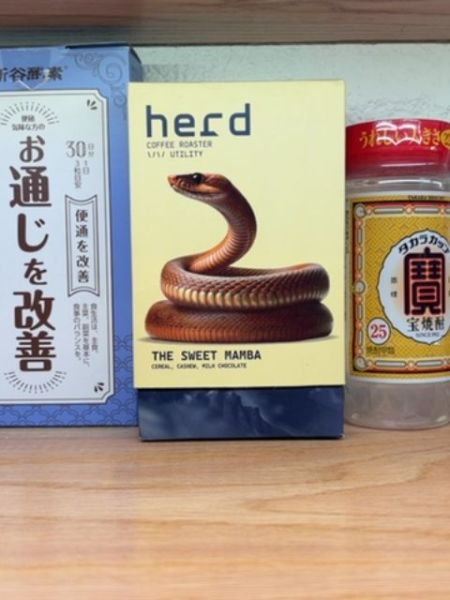
Herd Coffee Roaster
The product is a type of coffee roasted by Herd, known for its distinctive flavor profile involving cereal, ganja, and milk chocolate notes.
Country of Origin
Japan
Typography
The typography on the packaging uses a clean, sans-serif font that is modern and easy to read. The lowercase letters give a casual yet sophisticated feel, aligning well with the specialty nature of the product. The chosen font complements the minimalist design, enhancing the visual appeal without overpowering the central imagery.
Packaging
The packaging features a striking image of a coiled snake, set against a pale yellow background which conveys a sense of curiosity and allure. The use of minimalistic design elements keeps the focus on the brand name and its exotic flavor description.
Facts
- The product is part of a specialty coffee range by Herd.
- It is identified by its unique flavor combination, including ganja.
- The packaging design prominently features an animal motif, which stands out on shelves.